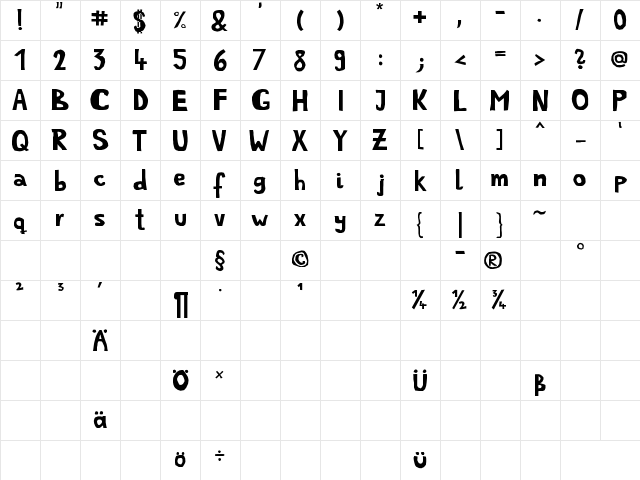
SimpleLife Regular
Design Context for SimpleLife Typeface
SimpleLife takes a measured approach to typography — its balanced proportions and neutral character make it a reliable workhorse for both digital and print work.